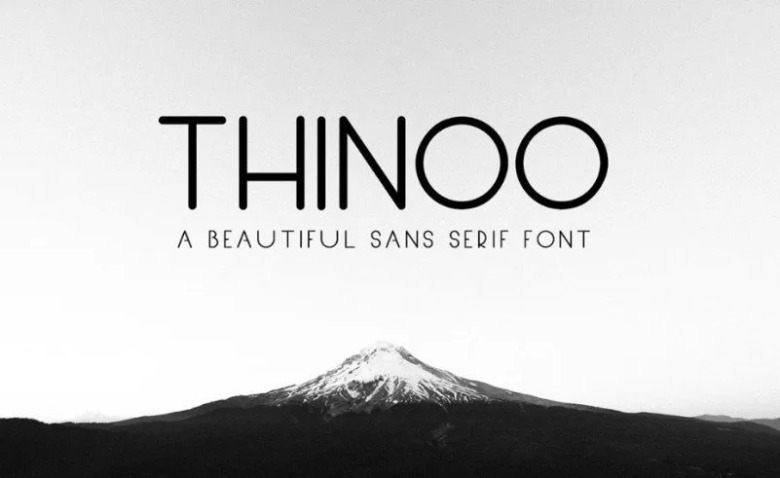
Thinoo Sans Serif Font
Introducing Thinoo Free Modern Font. It is was designed and shares by Nauman Altaf. Thinoo is a new clean and modern free sans serif font family with thin and bold styles. It contains uppercase, lowercase, number, punctuation and symbols.
This fonts are great for logotype, badges, clothing, poster, and much more. This fonts comes with opentype features and adobe illustrator format for illustration pack also many alternative style to improve your design.